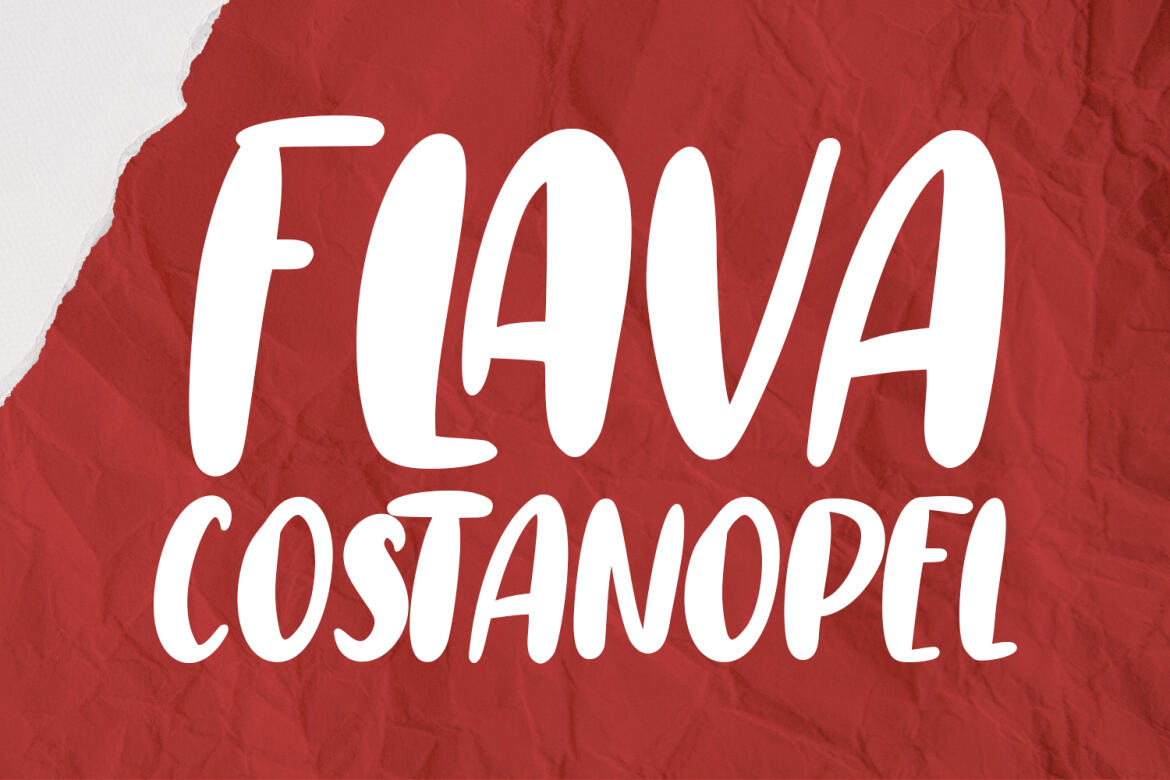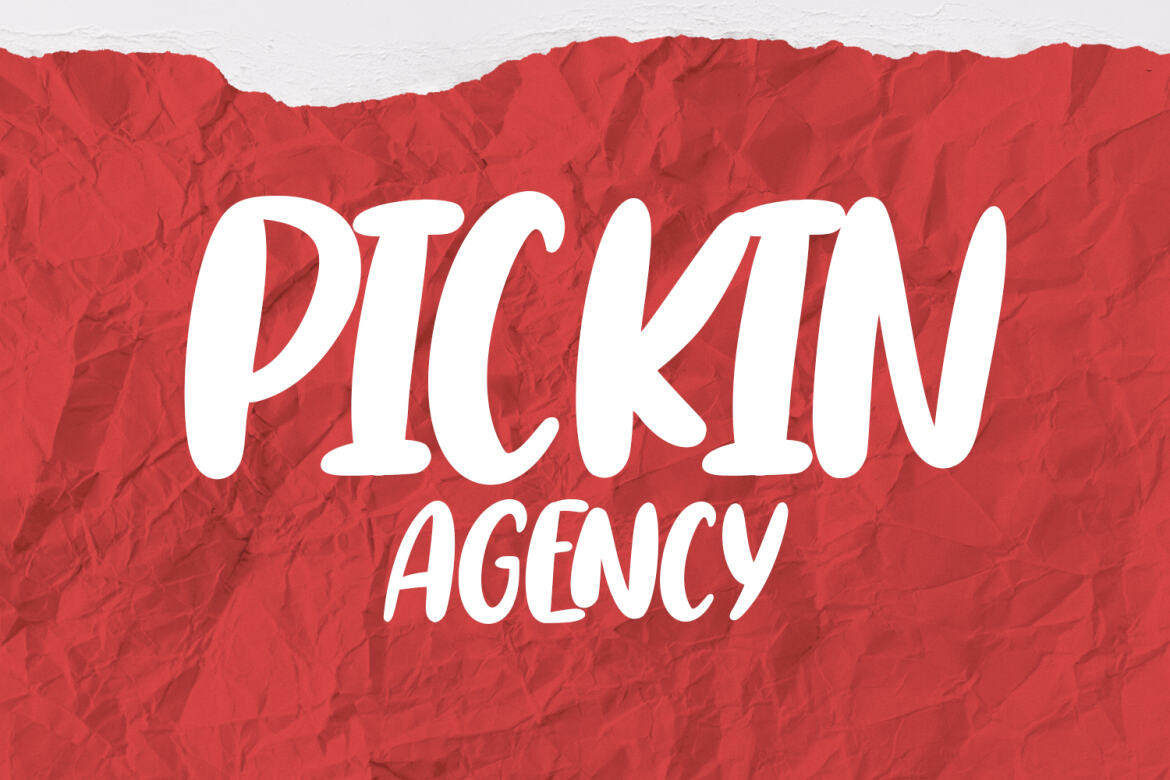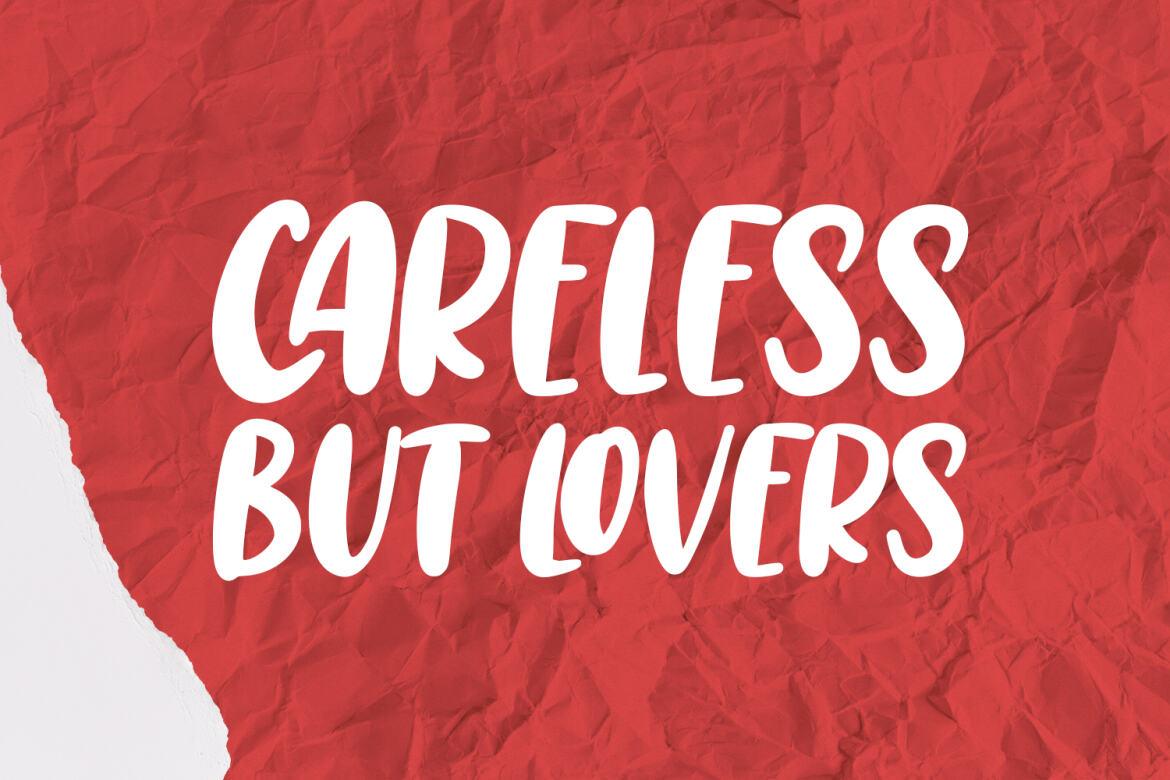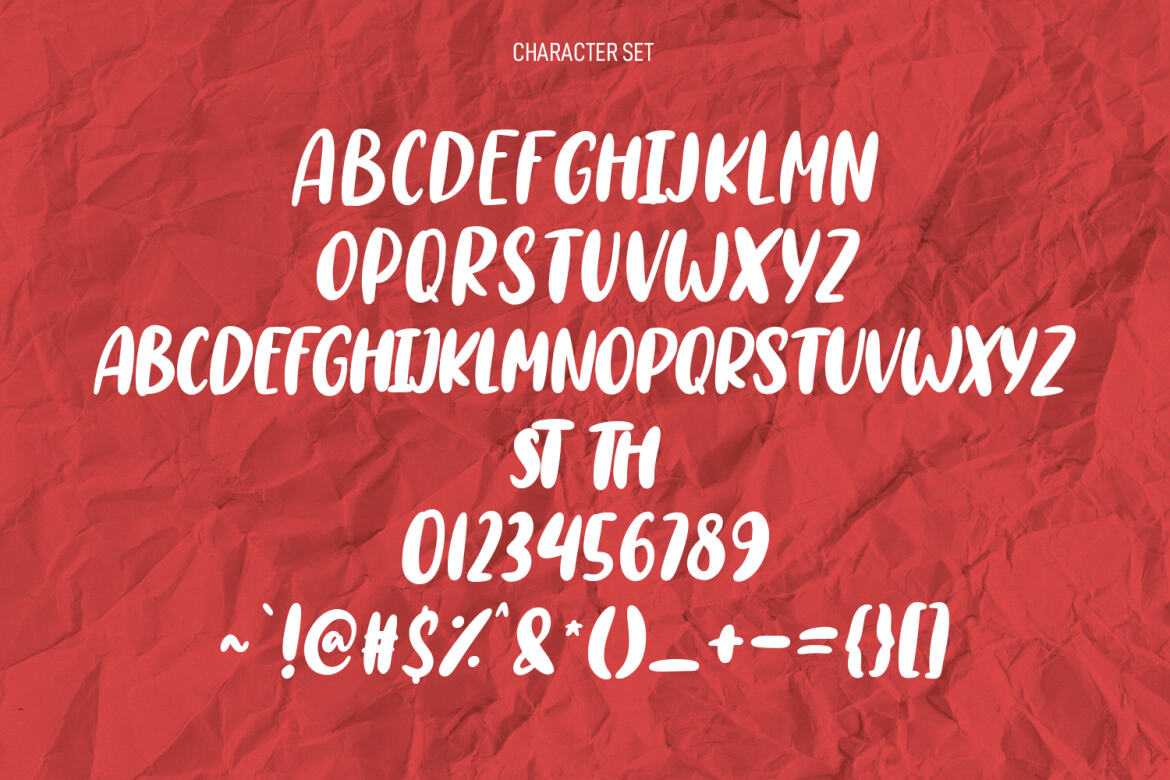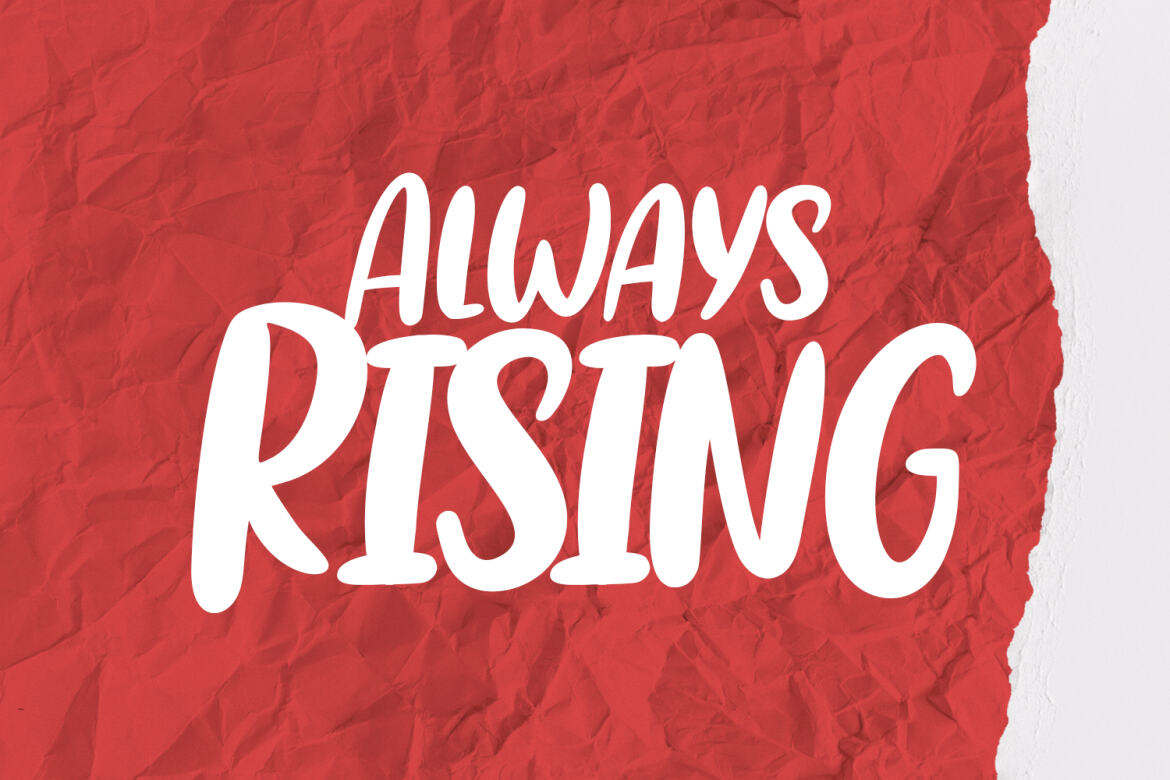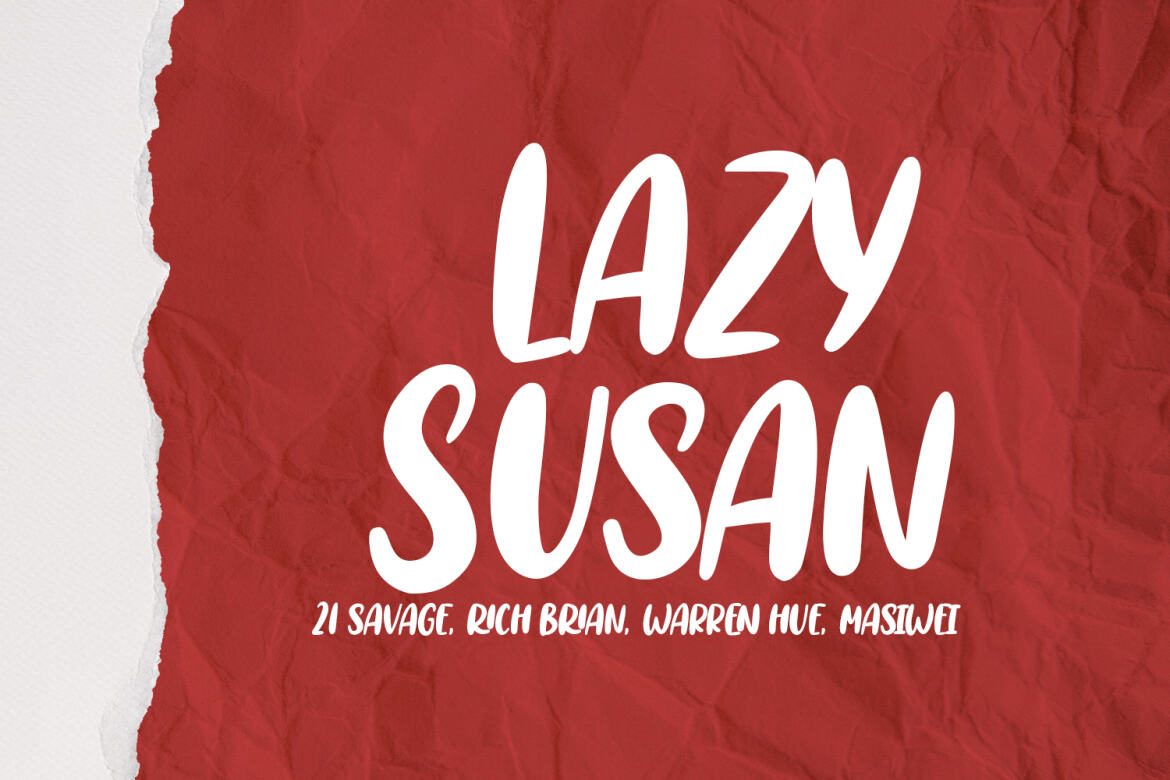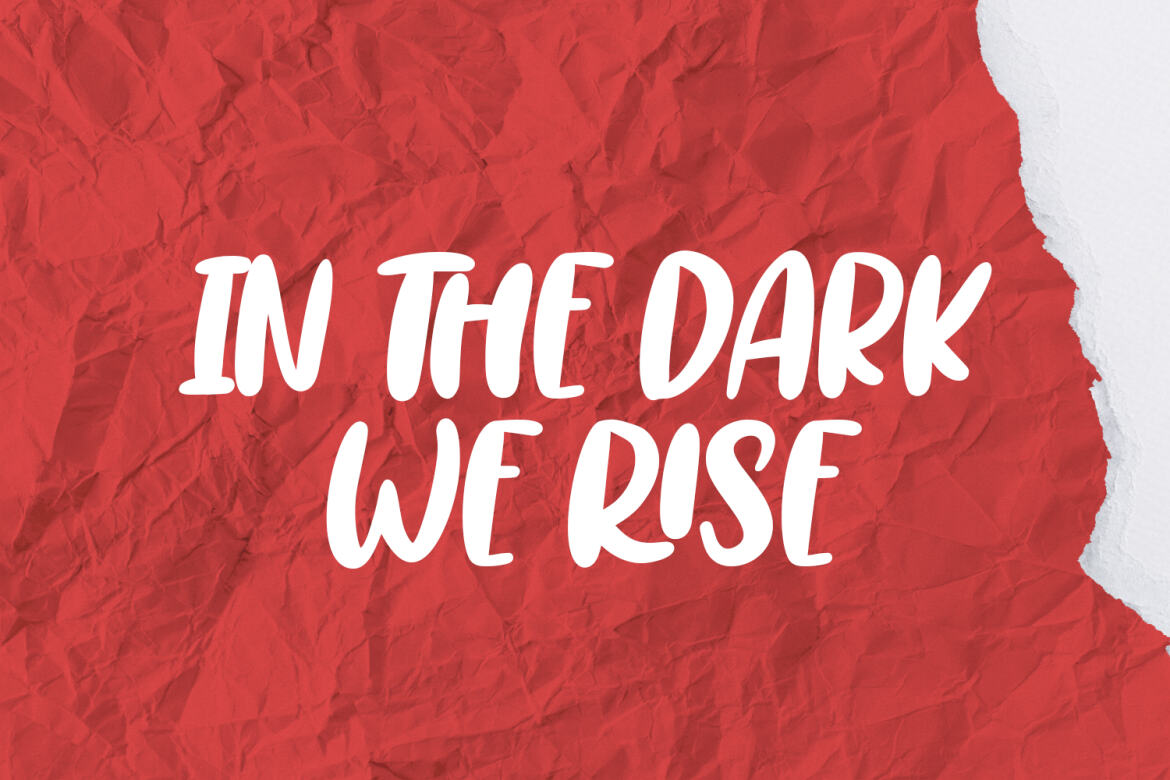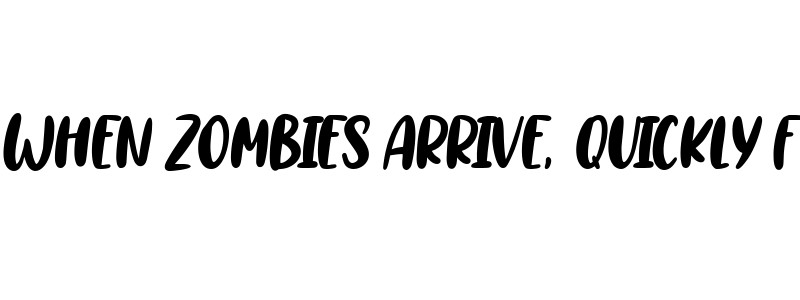
Molakulis Handwritten FREE Display Font
Molakulis
Molakulis is a casual handwritten display font. With bold stroke, fun character with some of ligatures. To give you an extra creative work. Molakulis font support multilingual more than 100+ language. This font is good for logo design, Social media, Movie Titles, Books Titles, a short text even a long text letter and good for your secondary text font with sans or serif. Make a stunning work with Molakulis font.